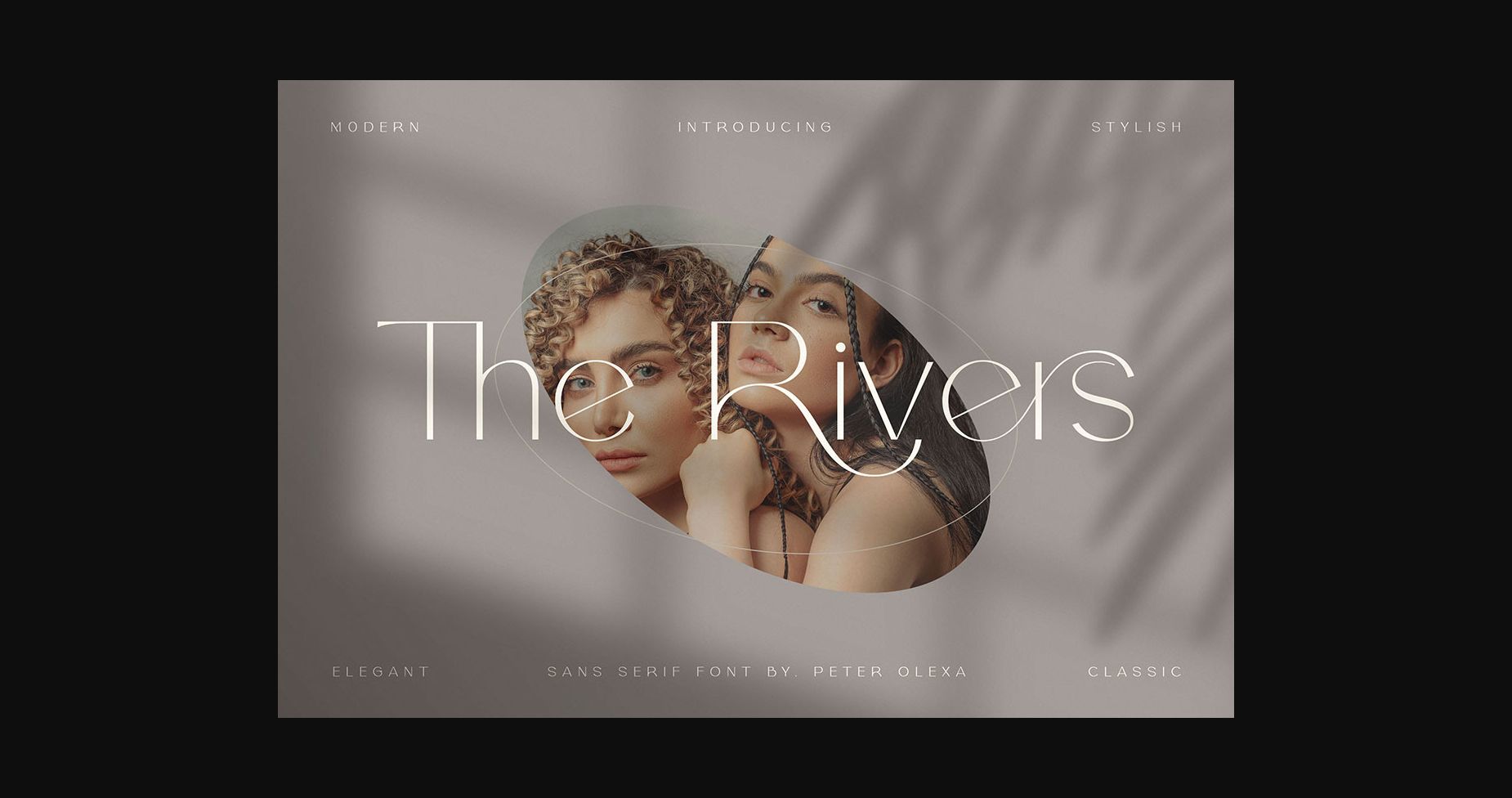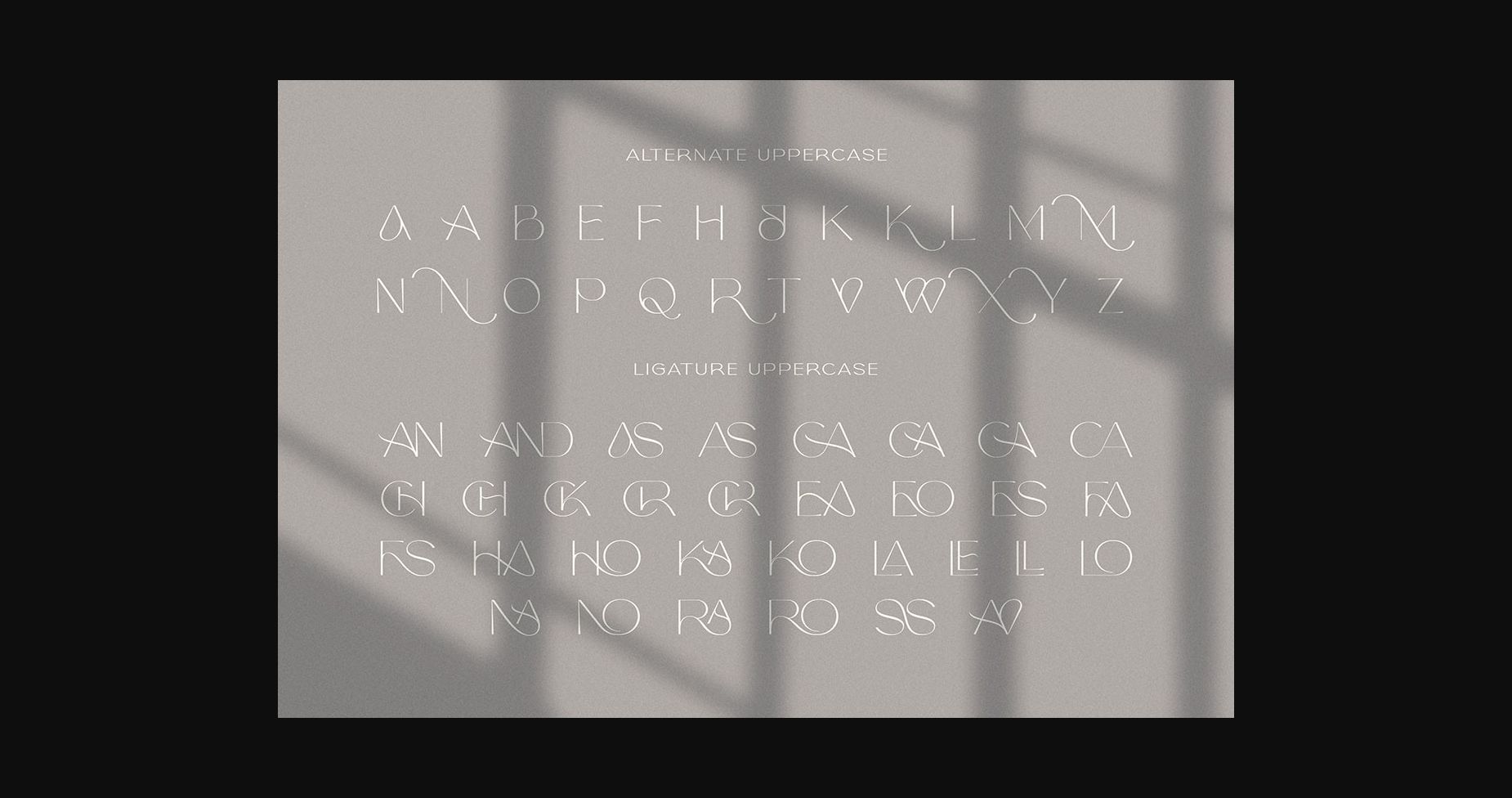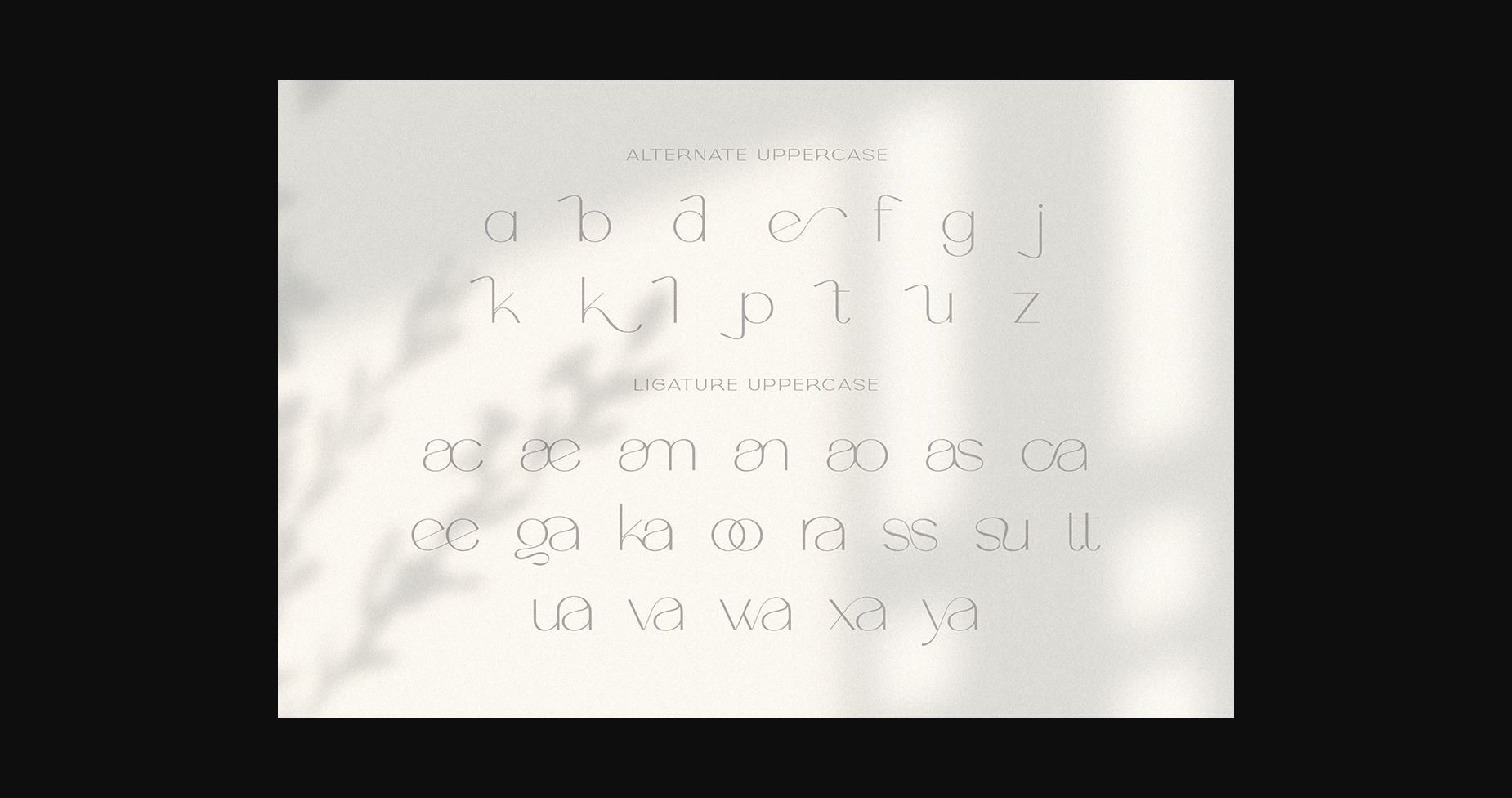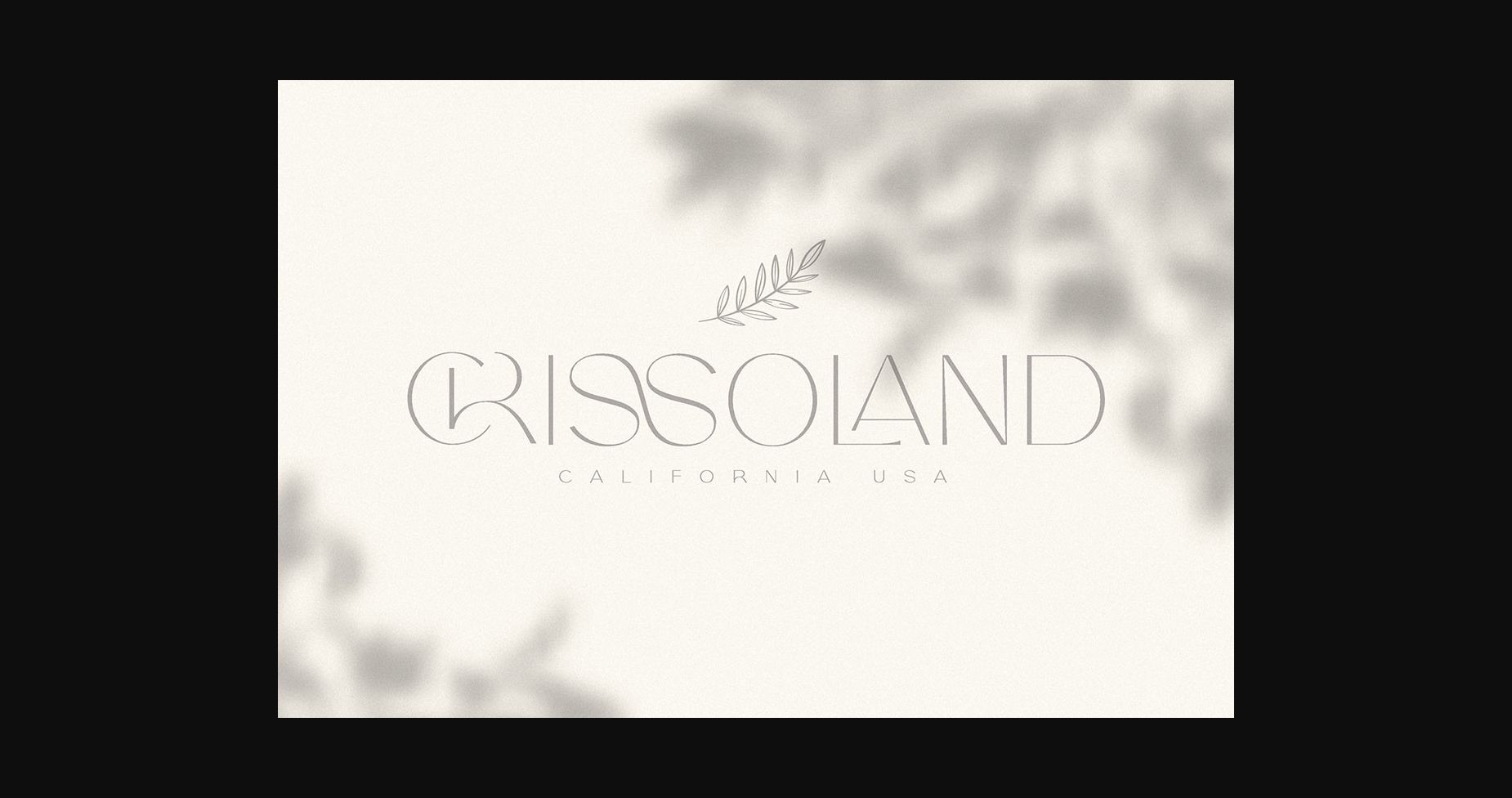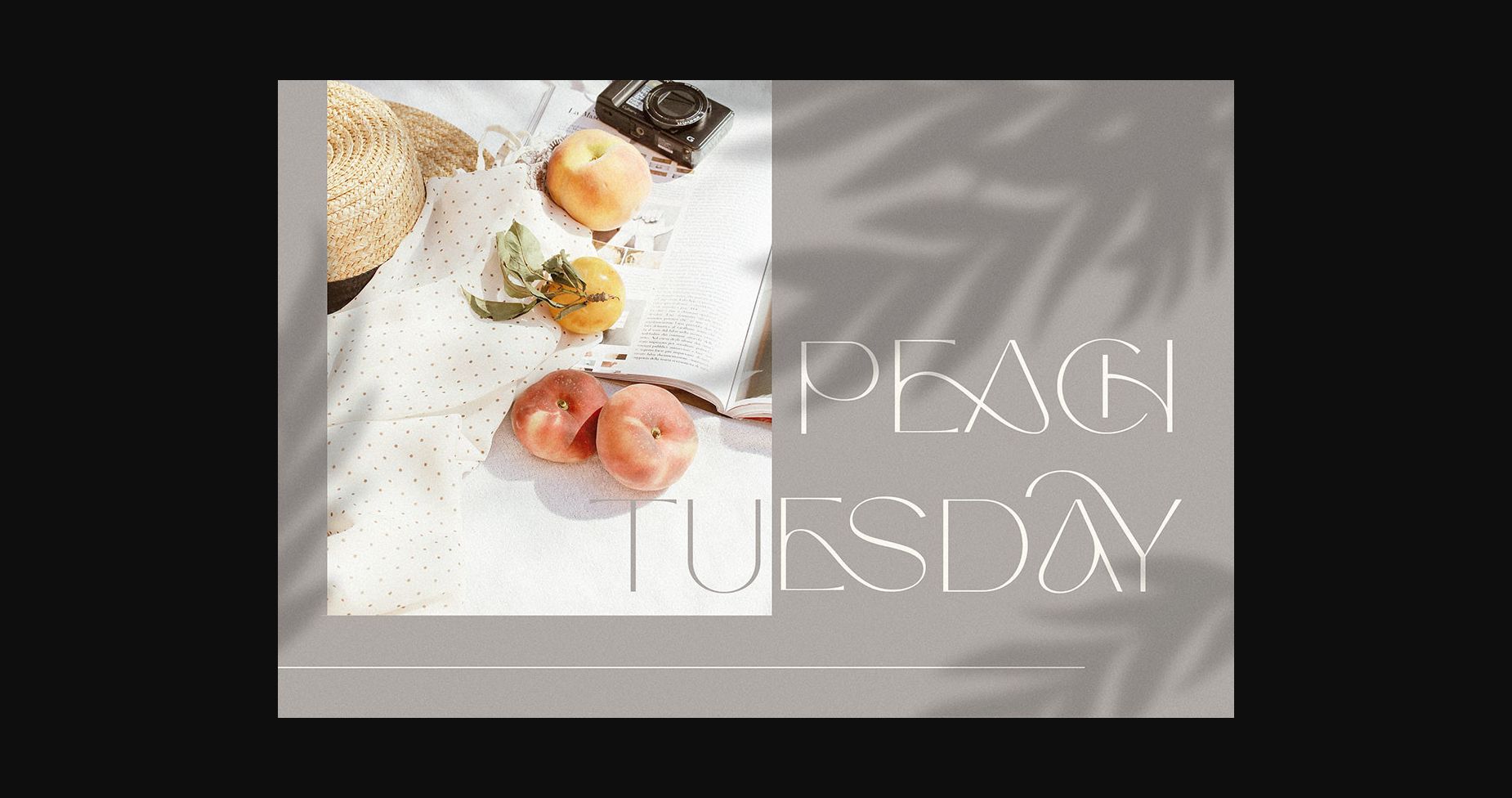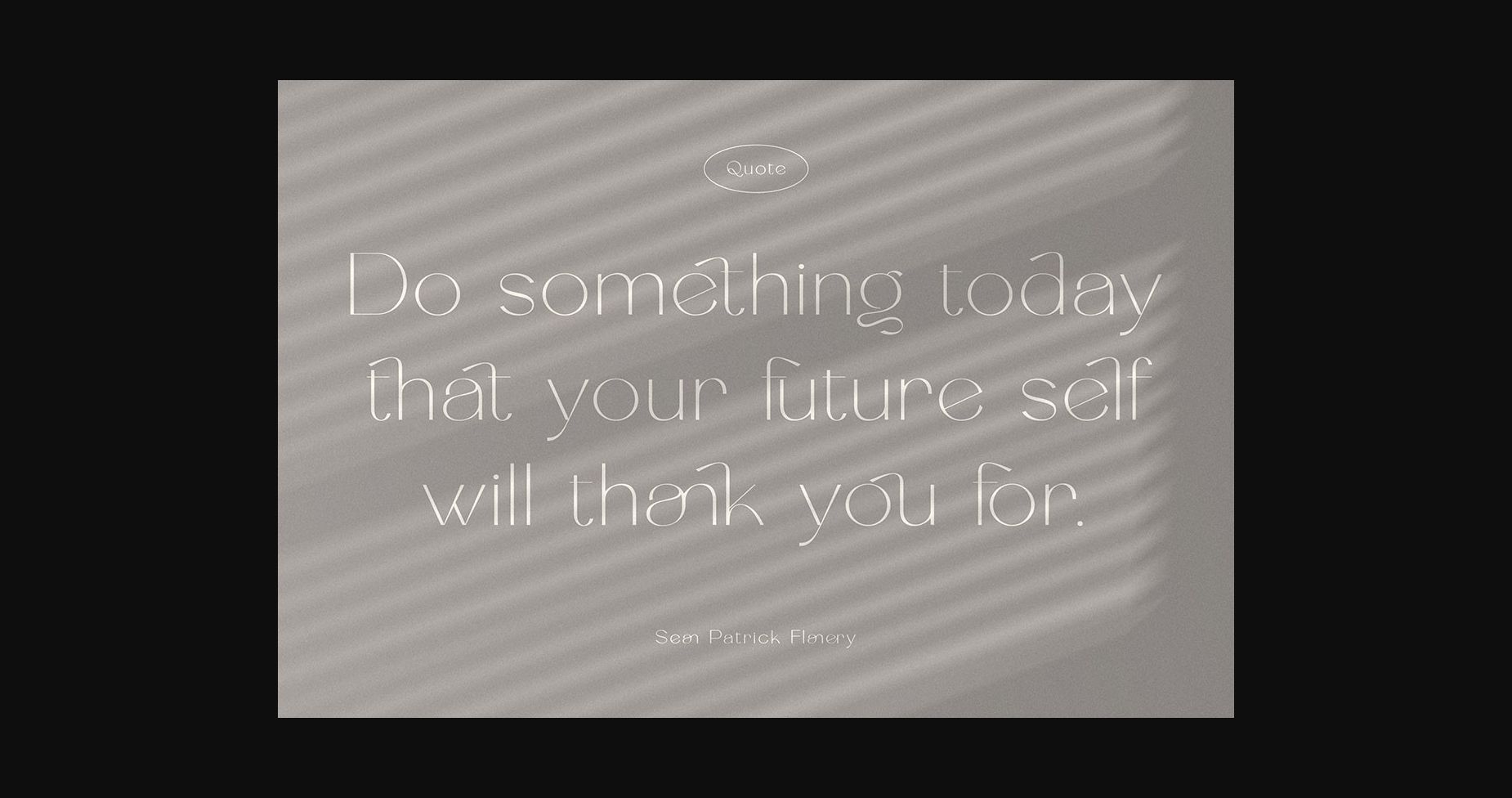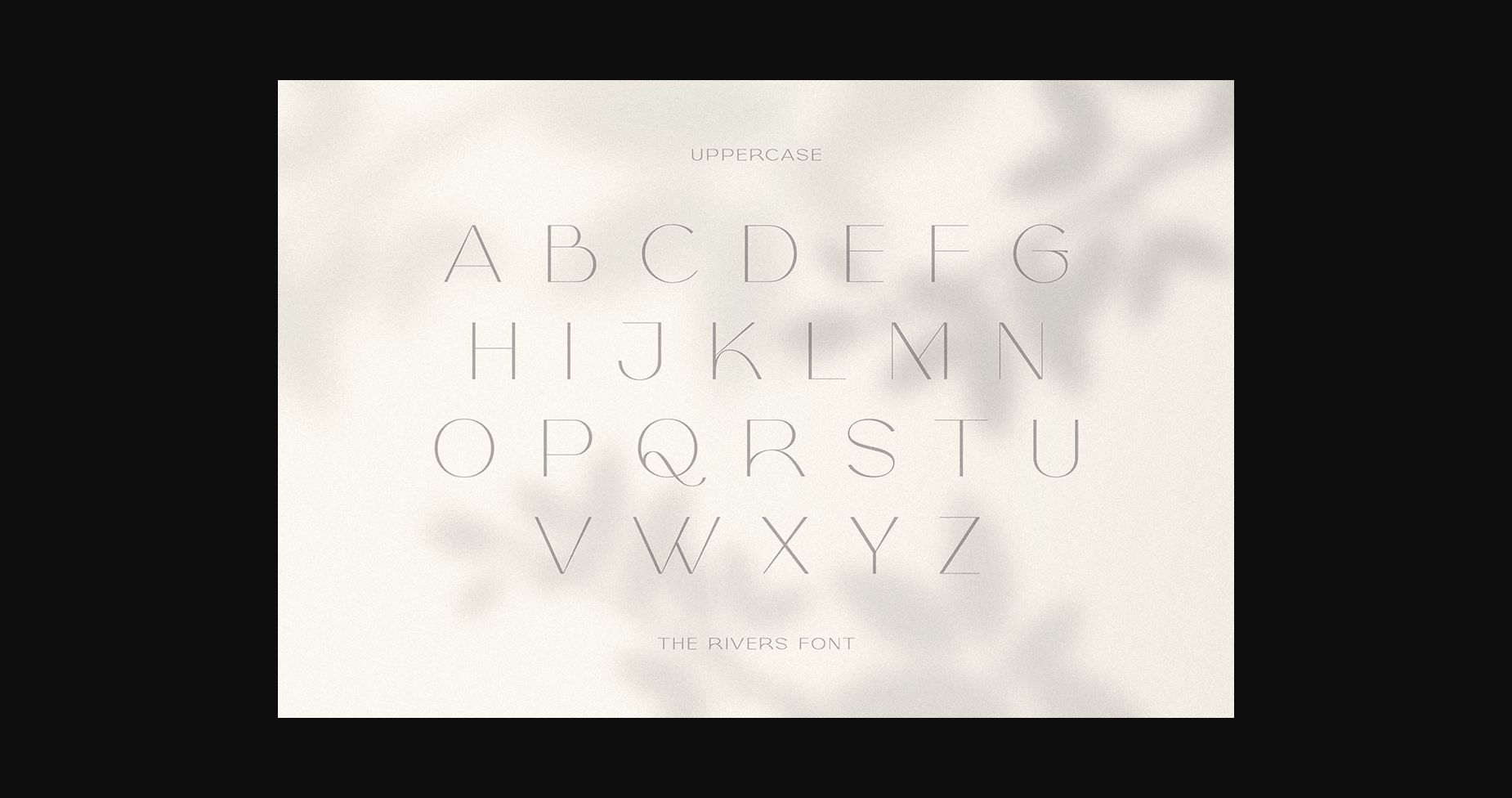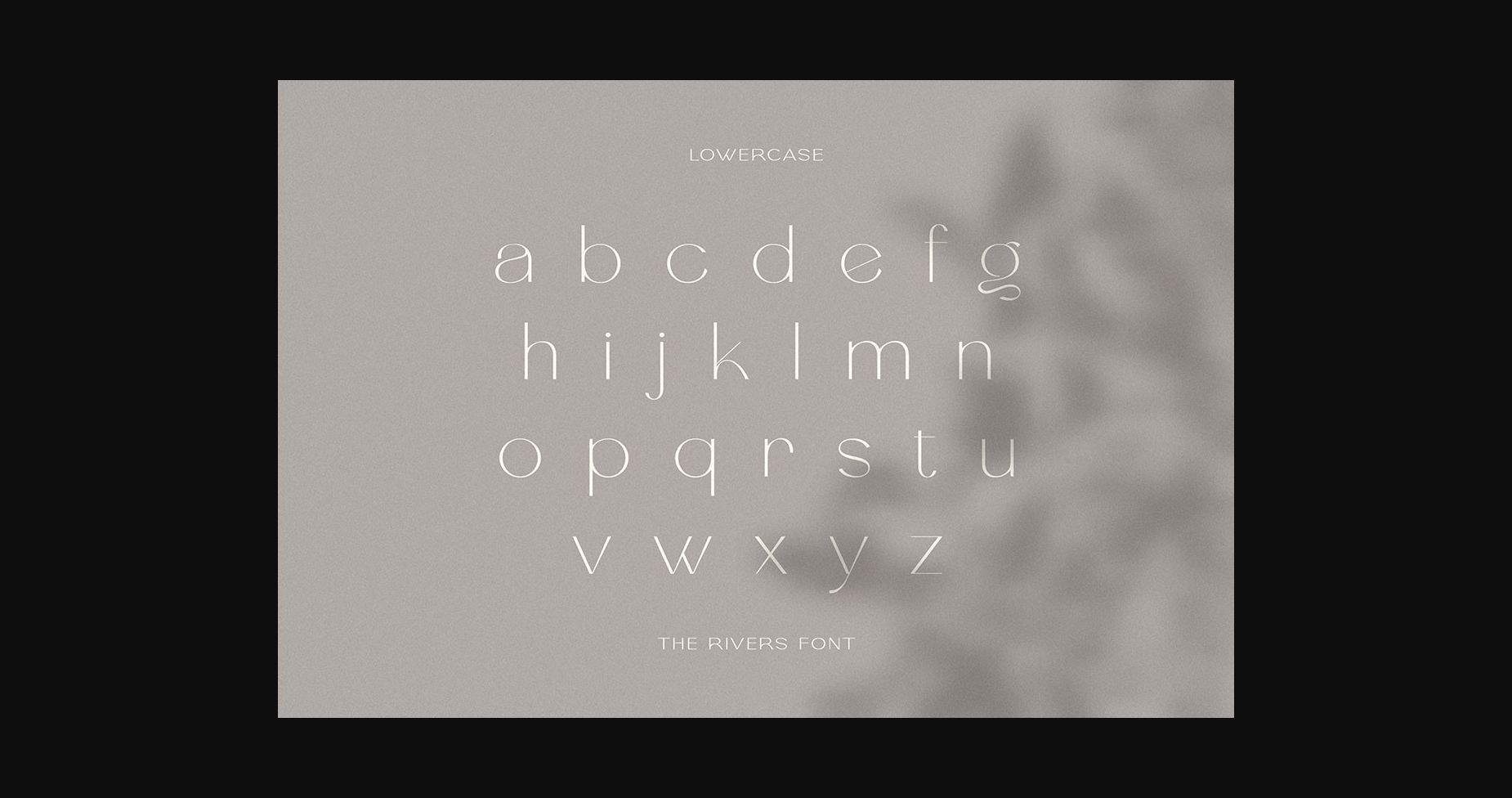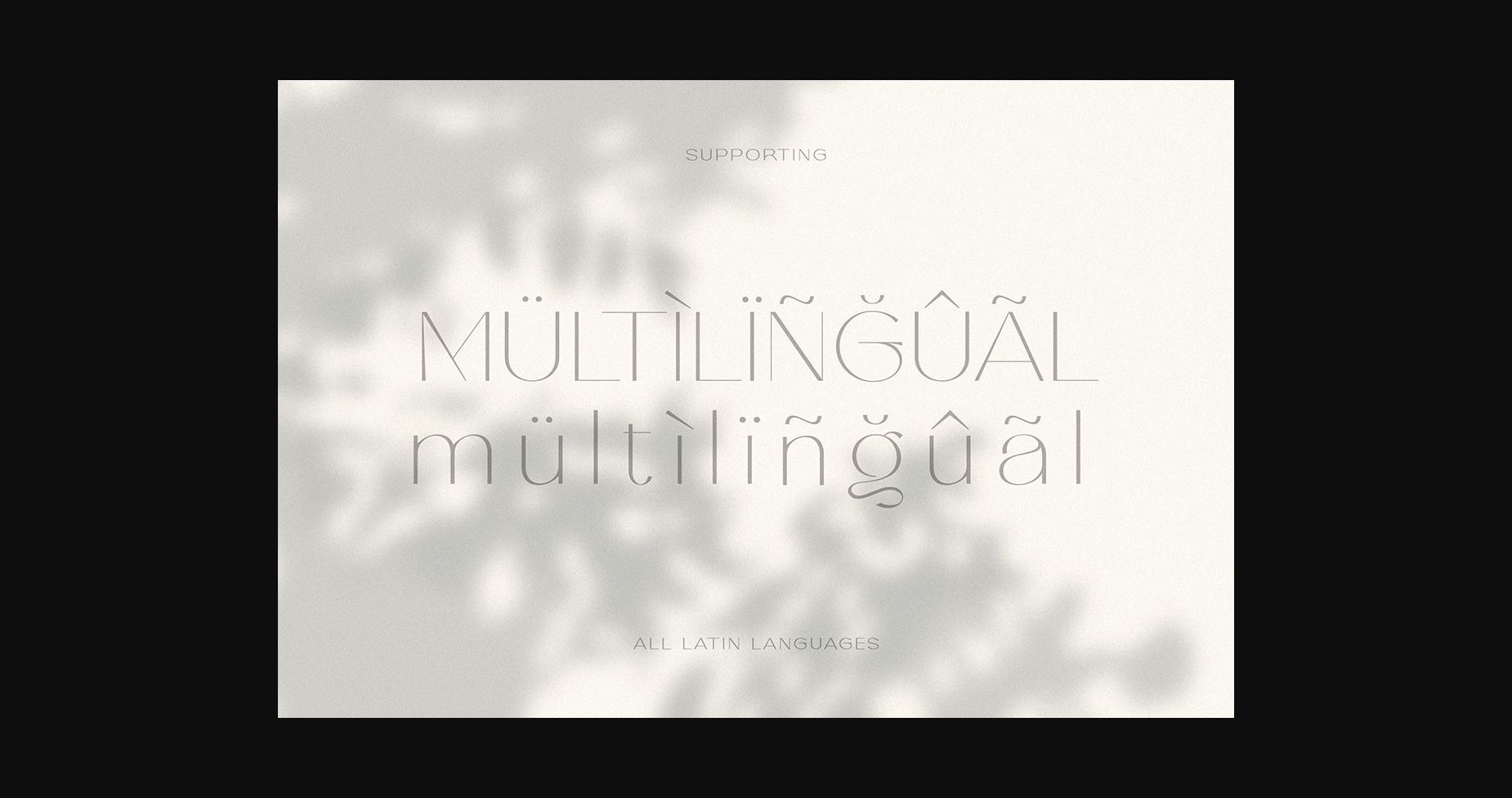
HomeSans Serif FontsThe Rivers Font Sans Serif Fonts The Rivers Font FacebookXPinterestWhatsApp 1 of 11 ... The Rivers Font Poster 2... The Rivers Font Poster 3... The Rivers Font Poster 4... The Rivers Font Poster 5... The Rivers Font Poster 6... The Rivers Font Poster 7... The Rivers Font Poster 8... The Rivers Font Poster 9... The Rivers Font Poster 10... The Rivers Font Poster 11... About The Rivers Font The Rivers is a thin lettered and elegant sans serif font. Stylish and distinct, this font will elevate each of your creations. The Rivers is PUA encoded which means you can access all of the glyphs and swashes with ease! DOWNLOAD NOW People also explored Black Shadows Font Lovely Style Font Colbiac Font Vakantie Font Monicha Font Candle Font Zefireno Happy Disney Font Thunder Stone Font 375 0 TagsThe Rivers Font Previous articleGladiolus FontNext articleGrancino Font LEAVE A REPLY Cancel reply Comment: Please enter your comment! Name:* Please enter your name here Email:* You have entered an incorrect email address! Please enter your email address here Website: Save my name, email, and website in this browser for the next time I comment. Personal Use Free Ashay Personal Use Free Read more about this font Roland Personal Use Free Read more about this font Castina Personal Use Free Read more about this font Calling Personal Use Free Read more about this font BLOG Free Fonts Risk: Why Free Fonts Can Be Dangerous for Designers Free Fonts Risk: Why Free Fonts Can Be Dangerous for Designers Using free fonts is a common practice in web and graphic design. However, the... 5 Fonts That Will Dominate Design Trends in 2026 Using Fonts in Digital Marketing: Tips to Strengthen Your Brand Identity Fonts That Capture the Spirit of New York City